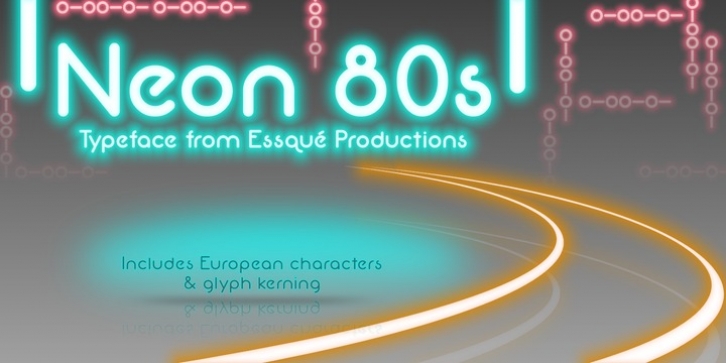
This font has a great retro-yet-modern feel that is slightly reminiscent of the dawning of the digital awareness age of the 1980s that gave a slight nod to the mid-20th century neon craze. It can be ideal for retro-themed events & promotions, health & cosmetic lines, or wherever you may need a sleek, minimalistic rounded style of lettering.